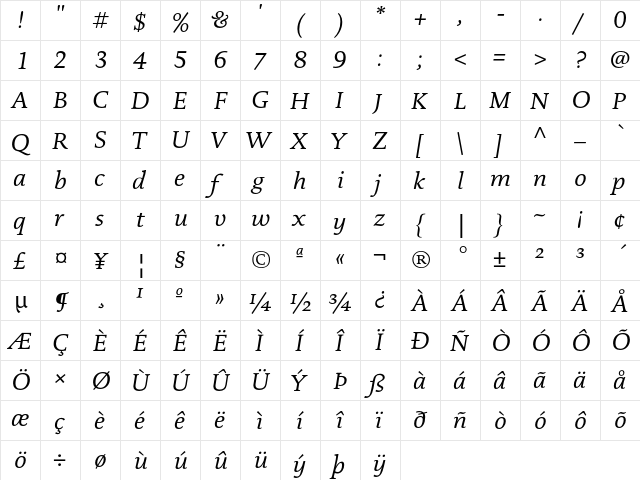
Documenta Dtl Italic Regular
Design Context for Documenta Dtl Italic Typeface
Documenta Dtl Italic offers clean, dependable letterforms without strong stylistic allegiance, making it a practical choice for designers who need flexibility. Its italic angle brings a sense of urgency and motion to the letterforms.
Pro Tip: Try Documenta Dtl Italic for annotation and caption copy alongside an upright companion — the contrast in angle creates a dynamic but ordered typographic system.